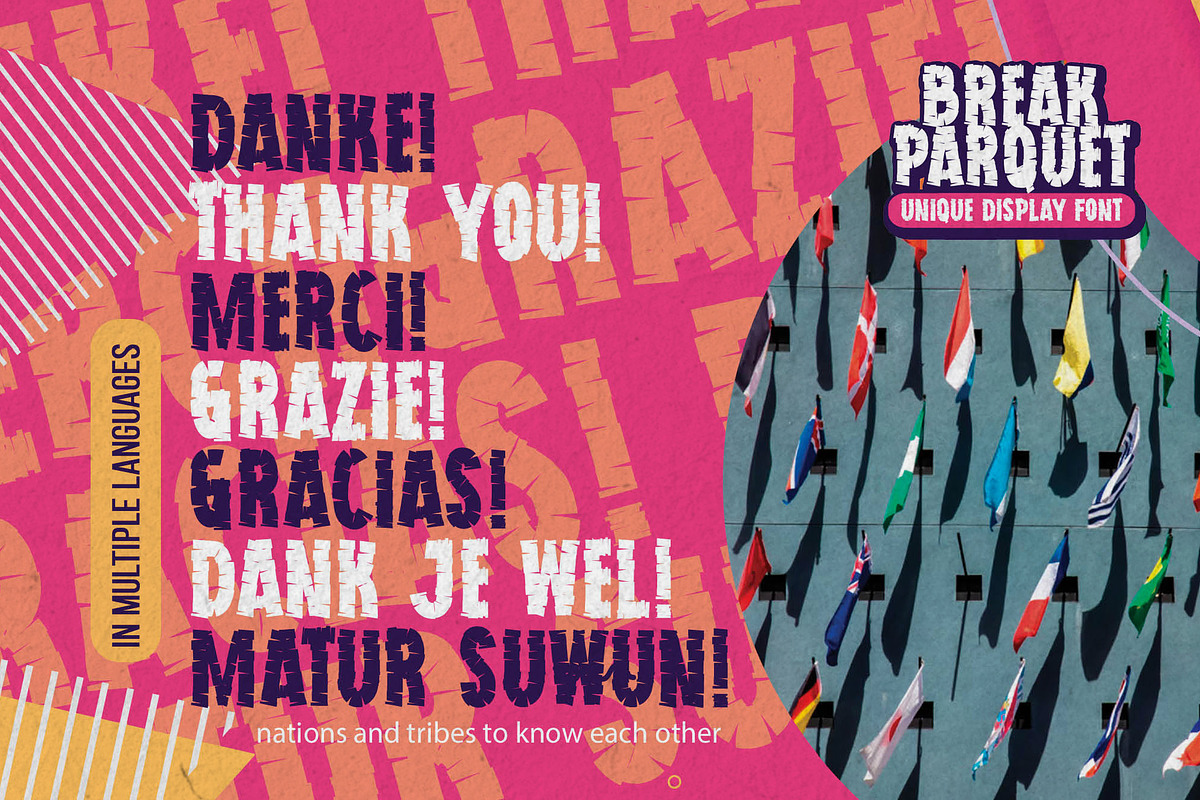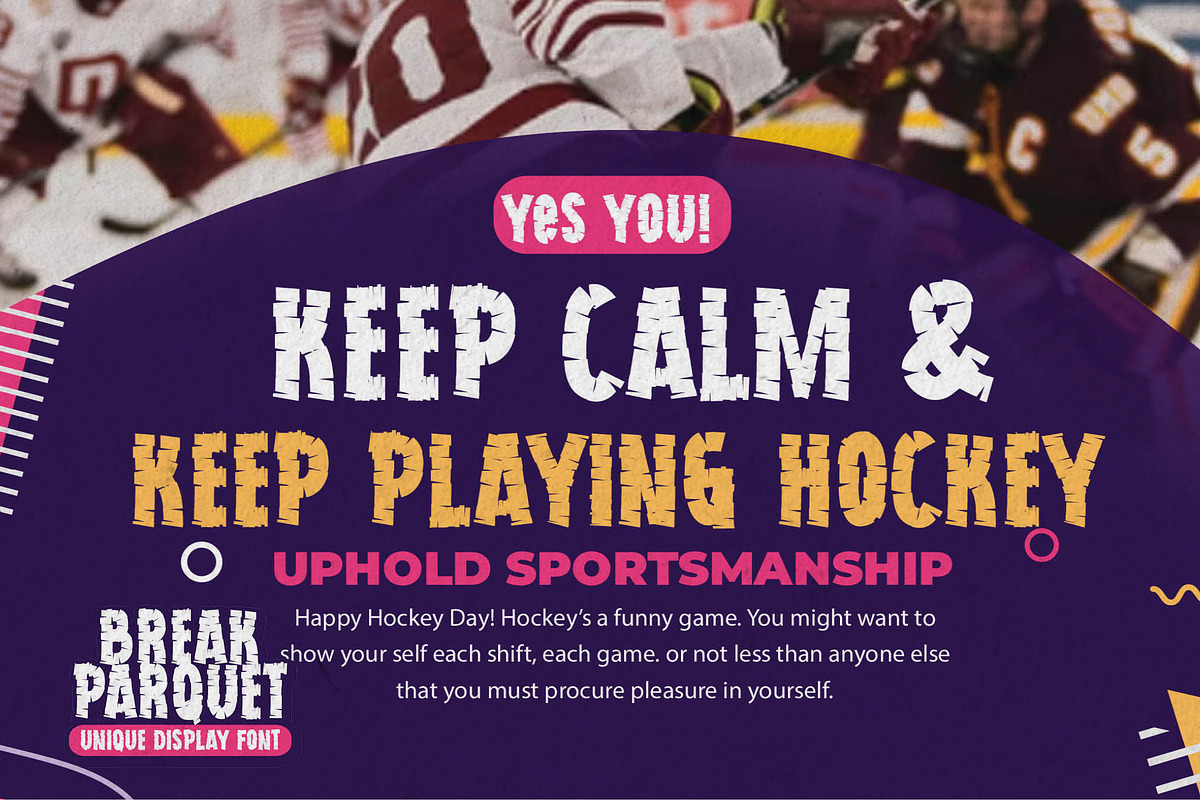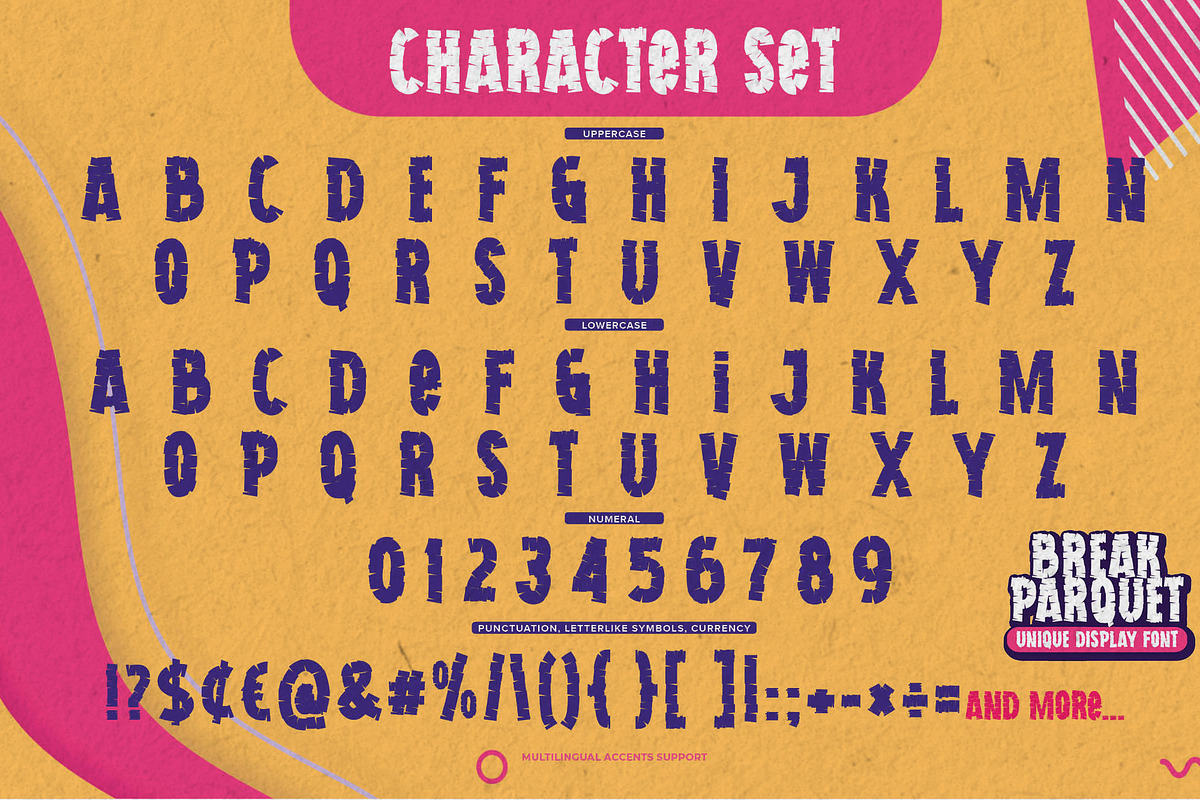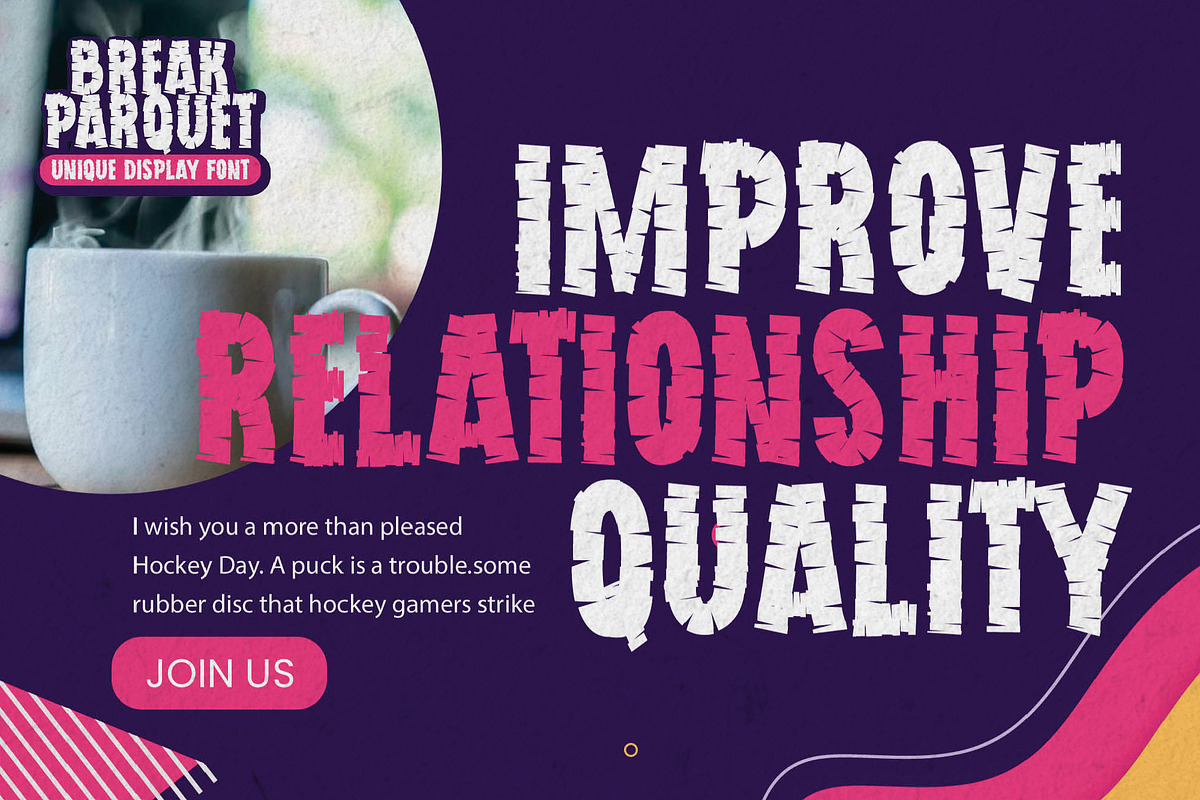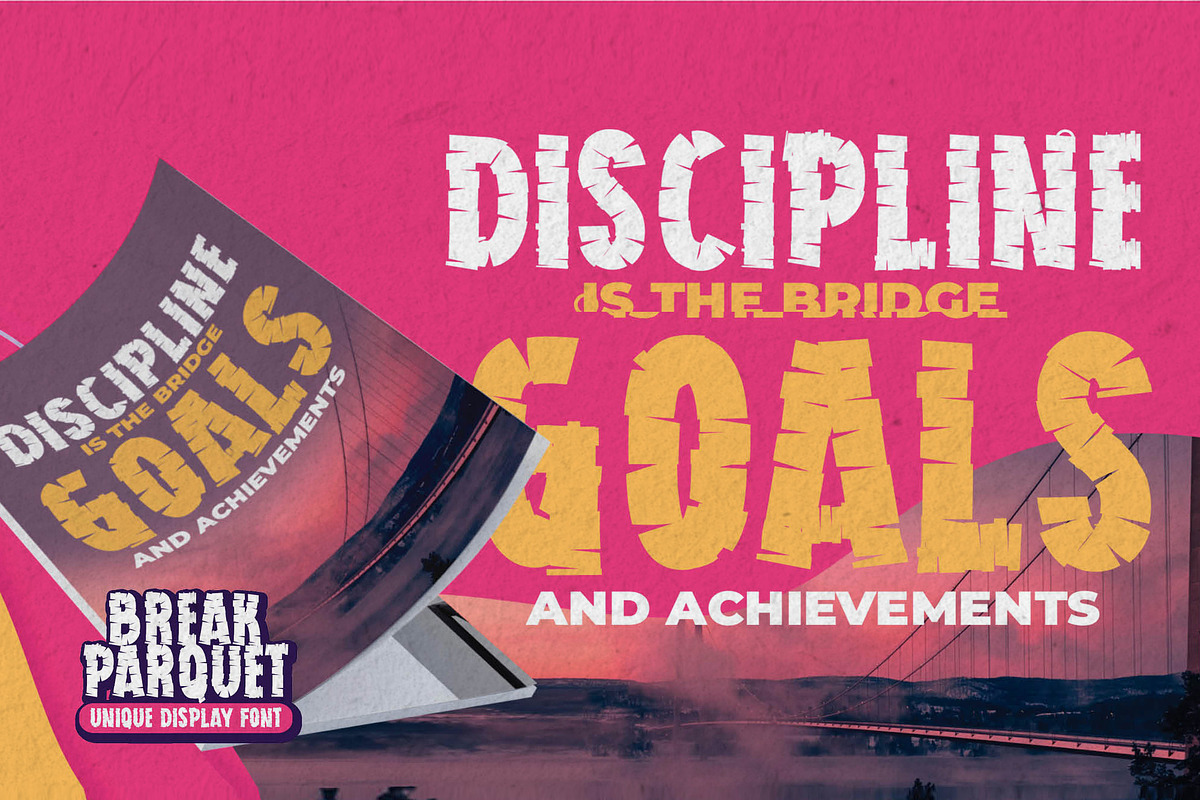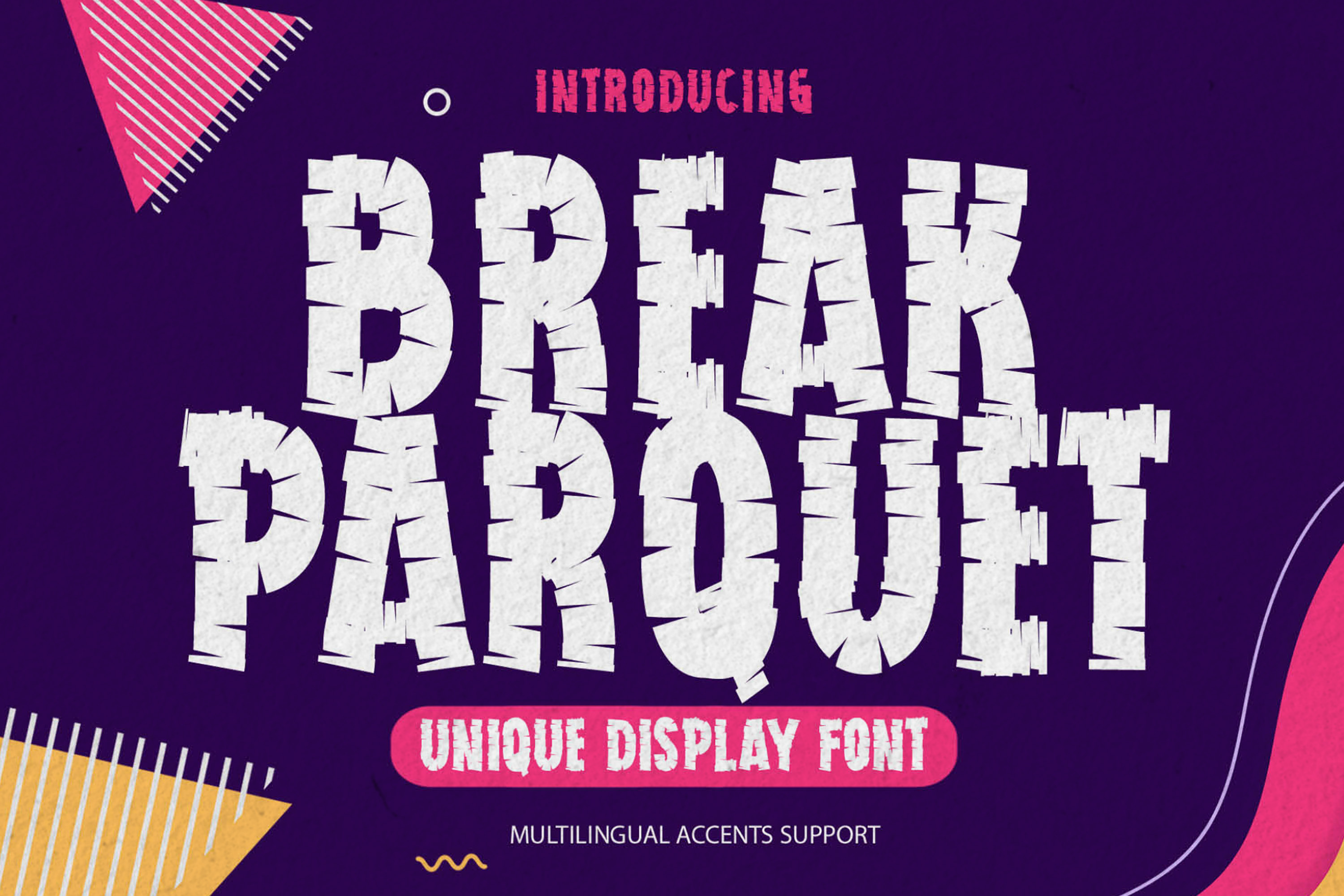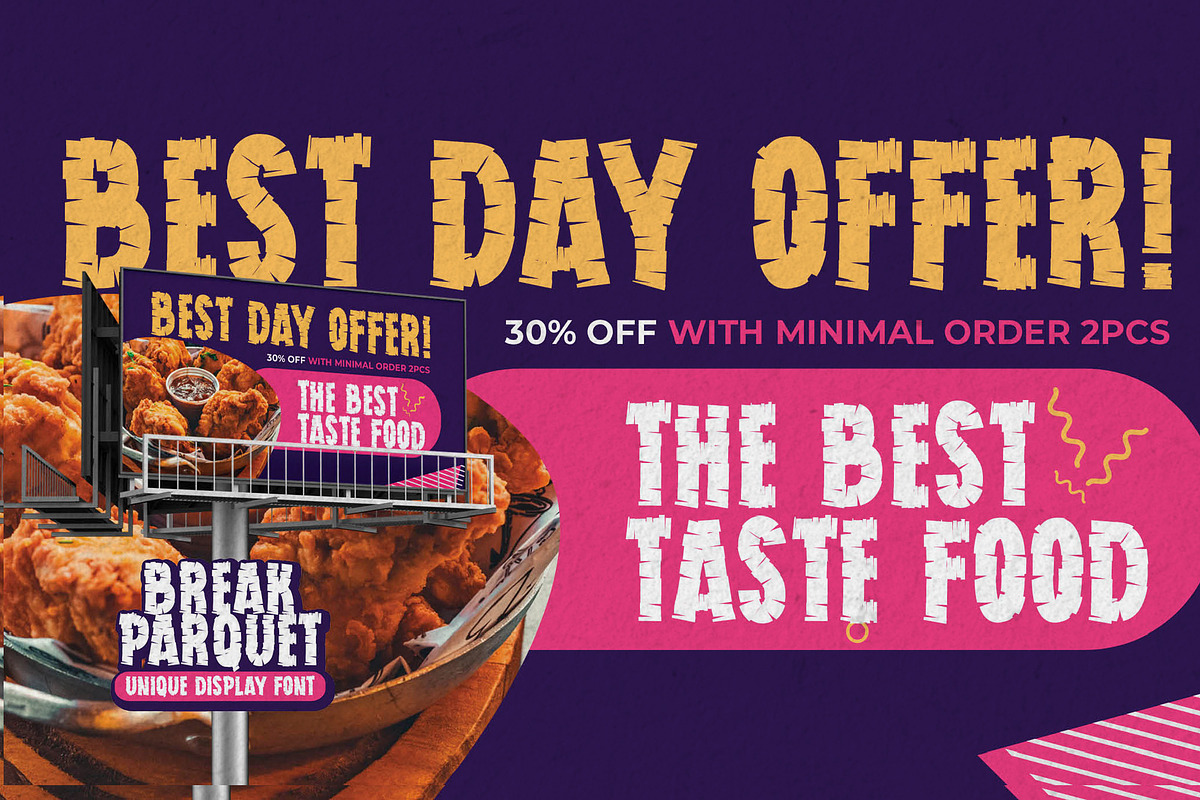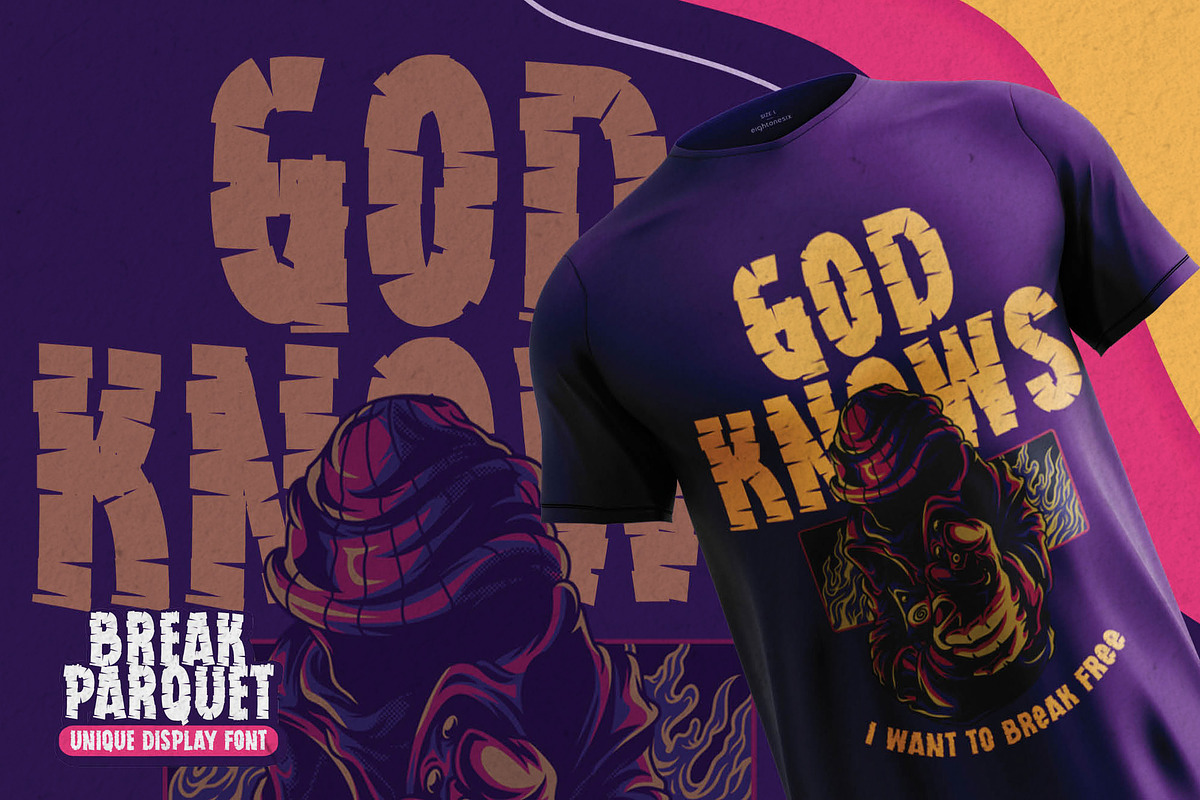
Break Parquet - Unique Display Font
Here comes our new font Break Parquet this is a Unique Display Font that is written casually and quickly.this a Authentic Style and classy style.
This font are handmade with unique font . Then crafted carefully drawn into vector format.this font is great for your creative projects such as watermark on photography, and perfect for logos & branding, photography, invitation, watermark,advertisements,product designs, stationery, wedding designs,label ,product packaging, special events or anything that need handwritting taste.
That is a natural handwritten feel. This handmade font will make your design has a beautiful natural touch for each details. It is perfect for any design project as Invitation,logo, book cover, craft or any design purposes. That is why Break Parquet is strong characteristic more natural look to your text with a more modern look to your text.